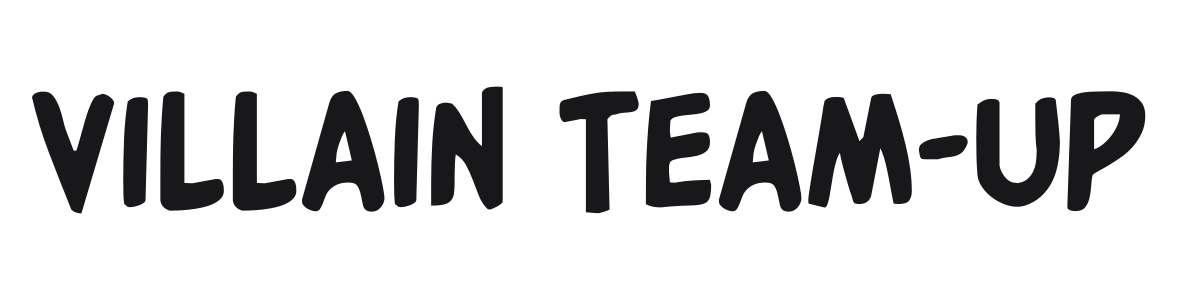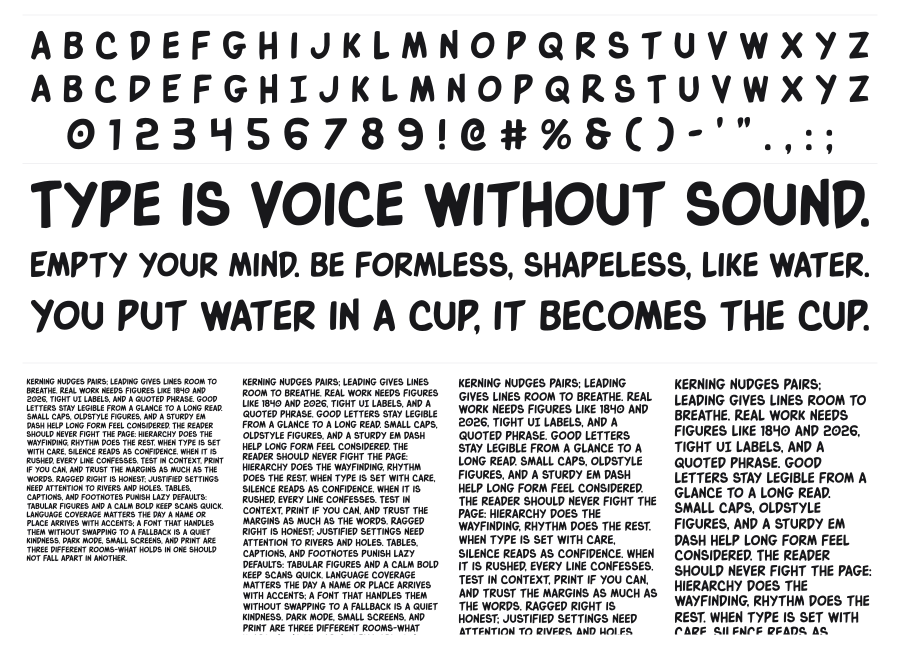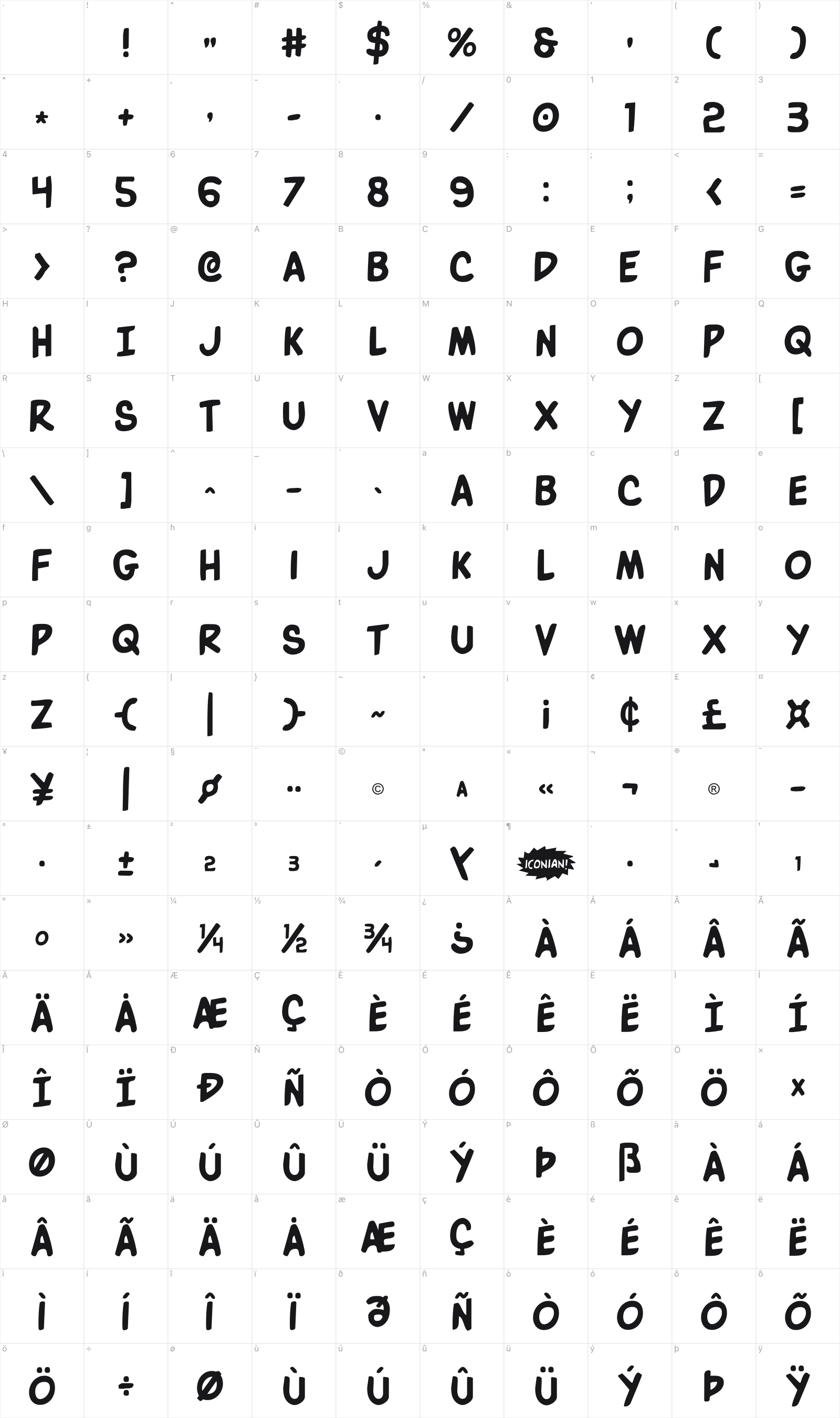
Villain Team-Up
Villain Team-Up is a chunky, rounded comic-book display font with thick strokes and a casual hand-lettered feel. The irregular terminals and organic weight variation give it genuine personality without veering into chaos. Strong for superhero-themed branding, game titles, or any project that needs bold, playful energy.